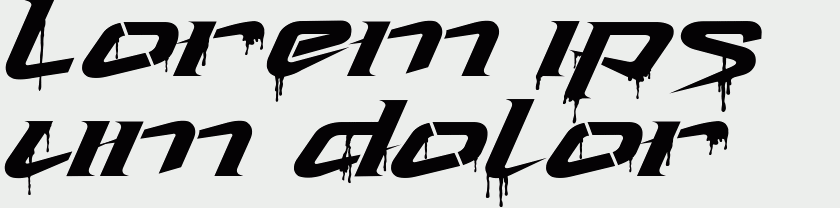
Street Stencil Overspray
Street Stencil Overspray is a stencil font that is based off the original Street Stencil Font. It is designed with a dripping look to give the viewer the impression it is the result of spray paint being applied to heavily to a stencil.